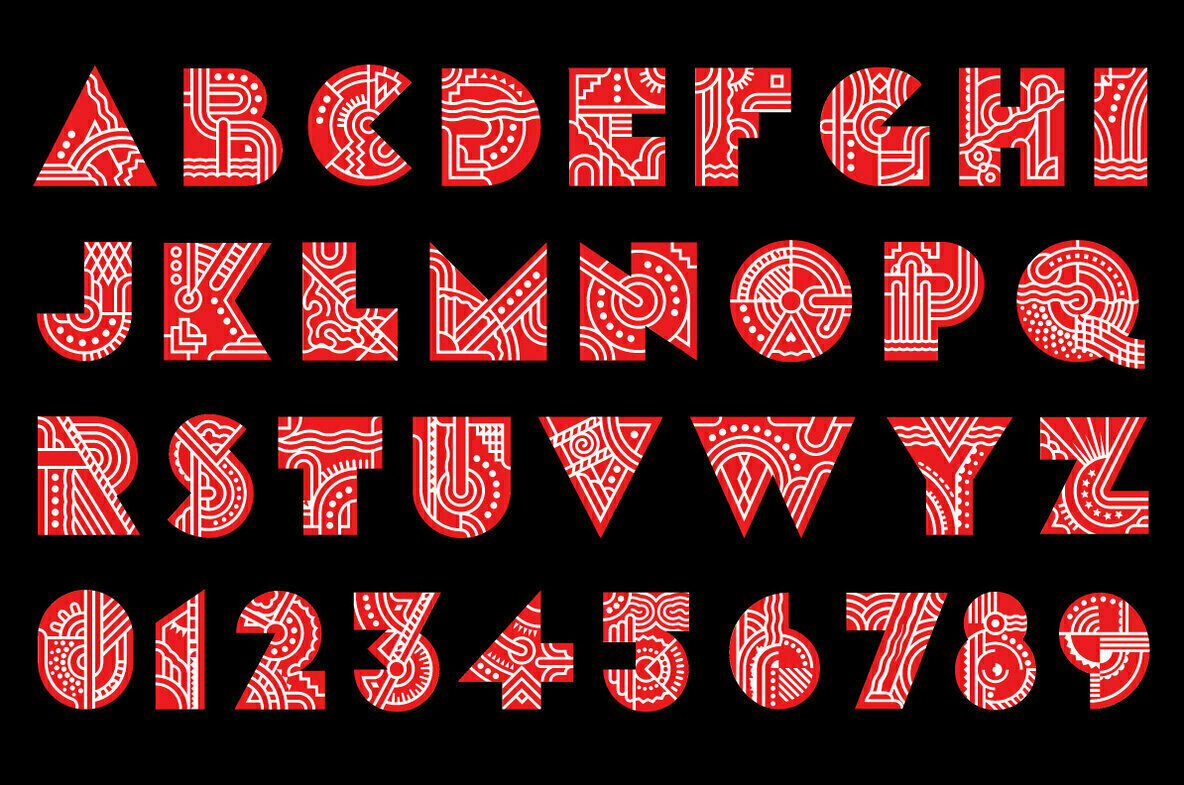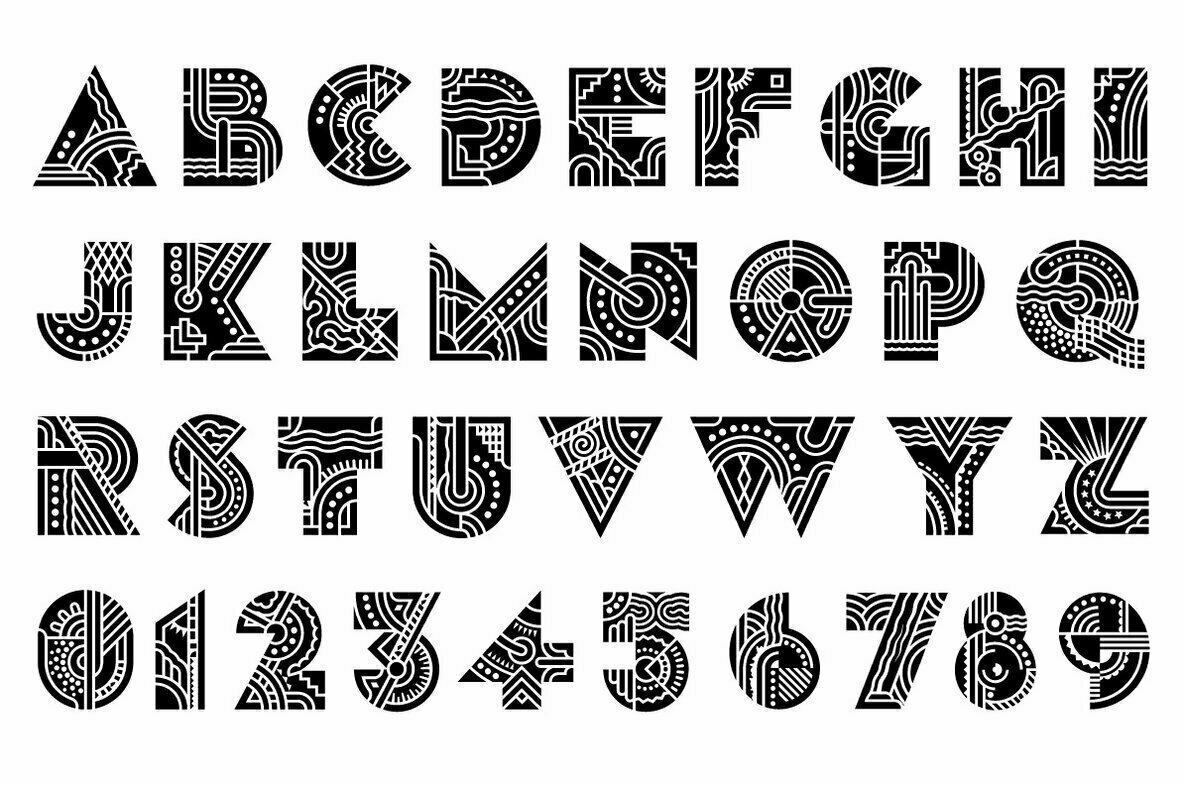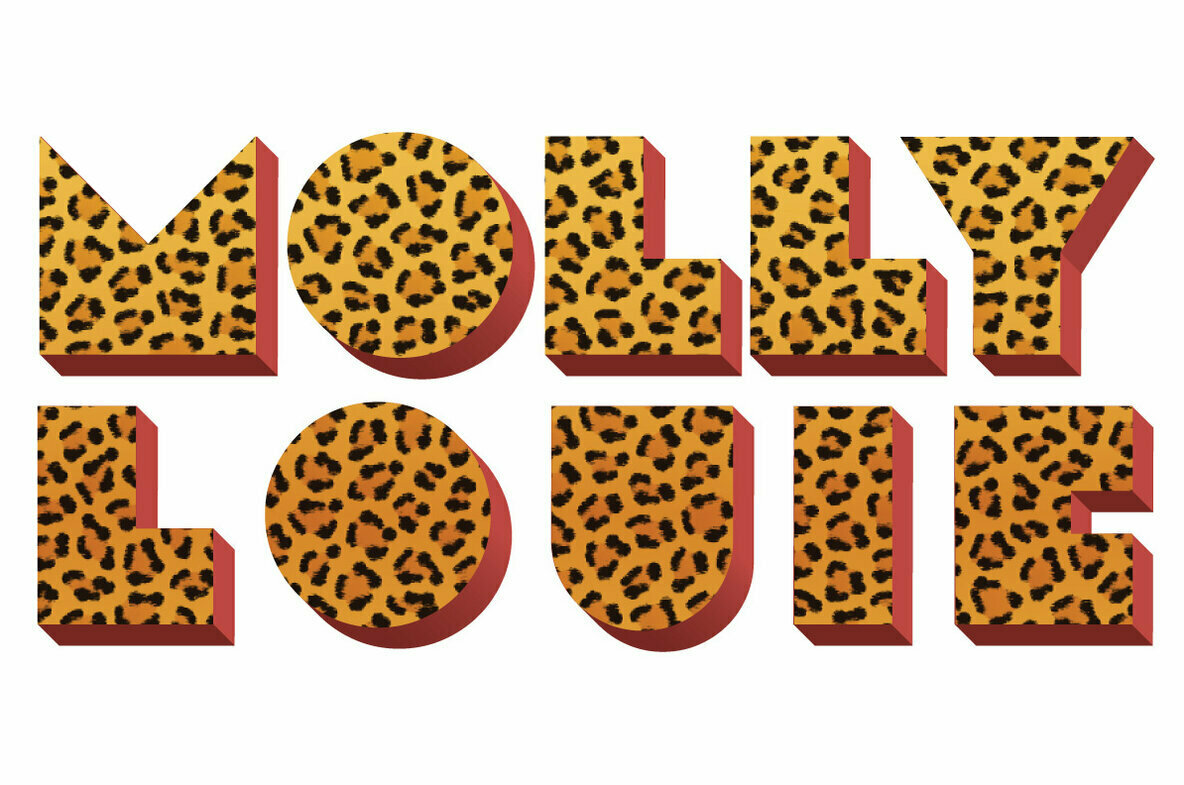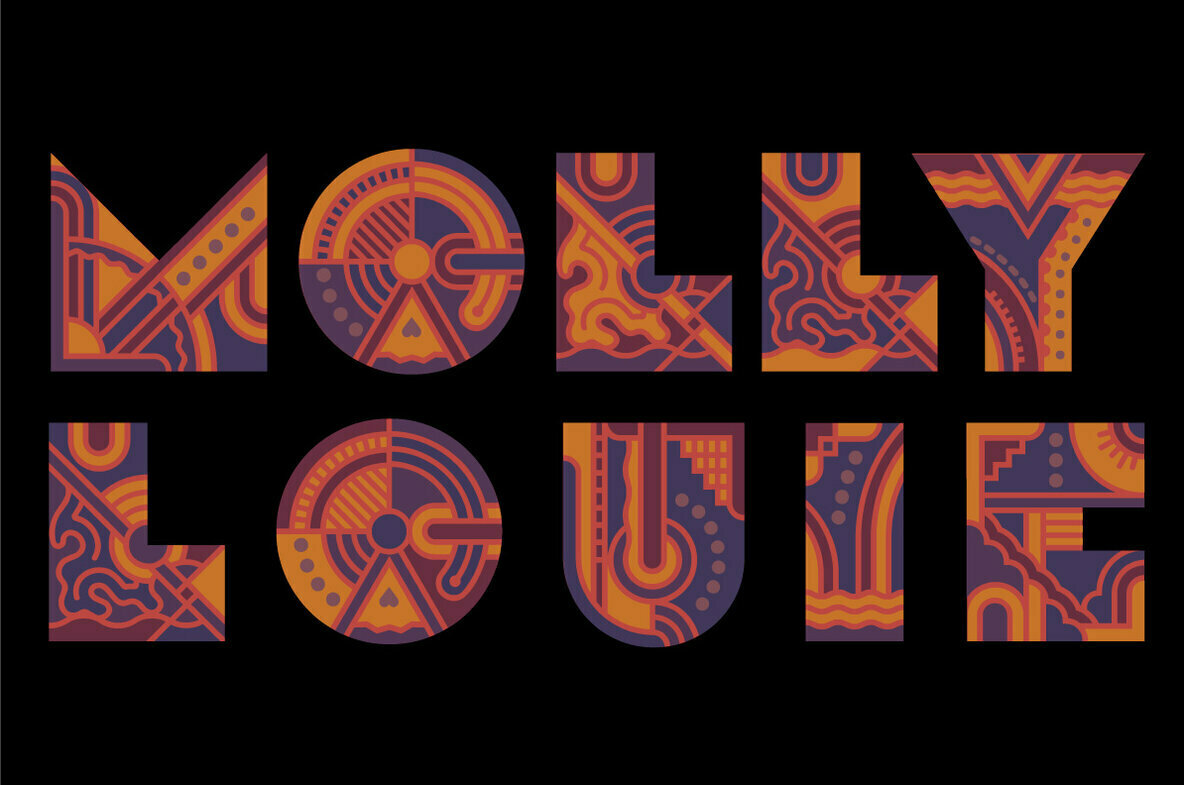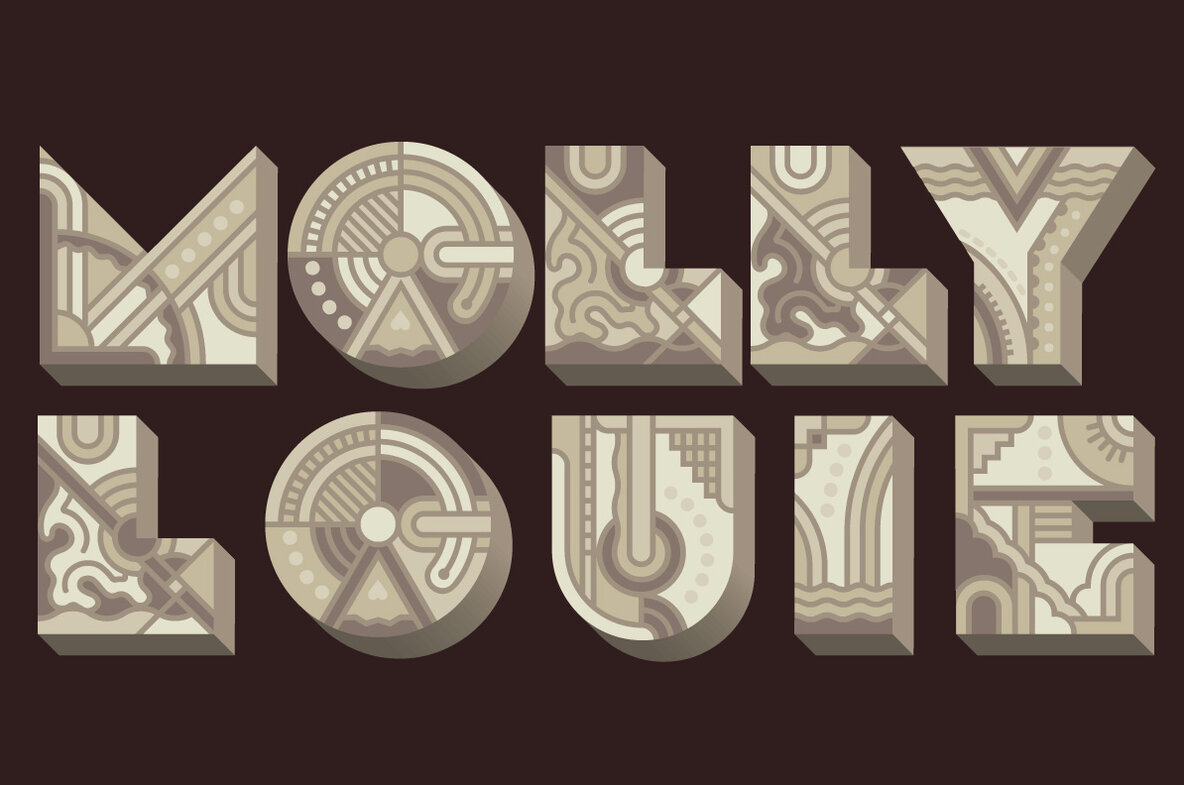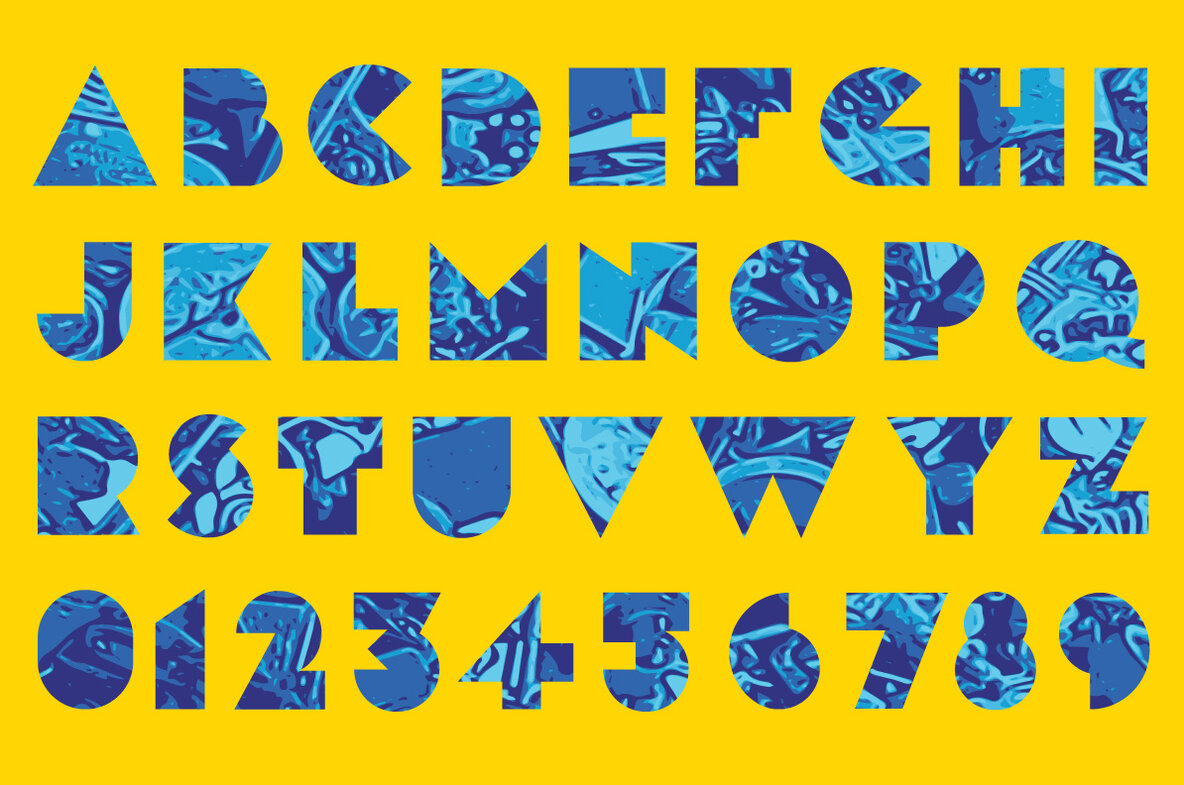
Conceived on a cold winter evening to the hot Jazz of the Eri Yamamoto Trio at Arthur’s Tavern in the Village, font Molly Louie is best described by the person for whom it was named. “Very intricate, like a whole little world in each of them” and “The solid is nice too, like little cut up sandwiches.” The detailed and solid versions facilitate a variety of two-color applications. While you might not use this decorative display font at smaller sizes, you are encouraged to let your imagination take it to places you might never have suspected.